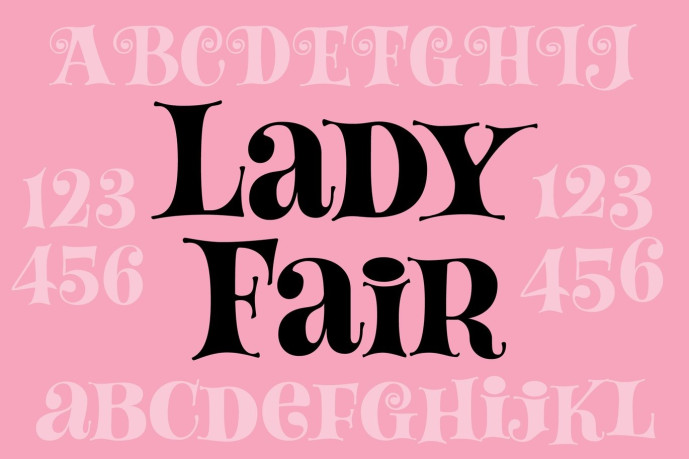
Lady Fair – An original typeface inspired by the hand-lettered posters from a popular 1960s musical film. The font contains tons of alternates and swashes that can be mixed and matched for typographic variety. This is a fun and bold typeface that exudes happiness and charm.